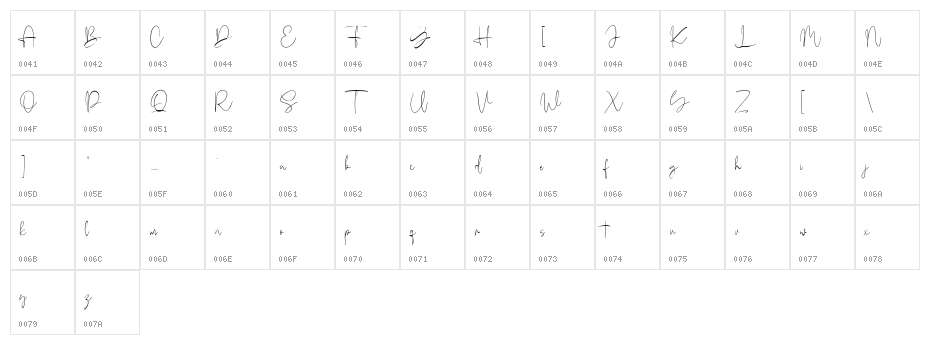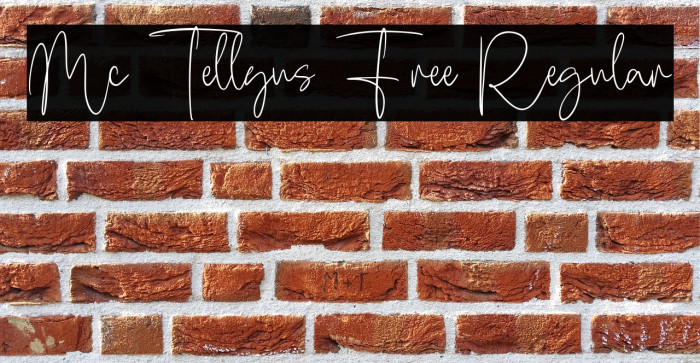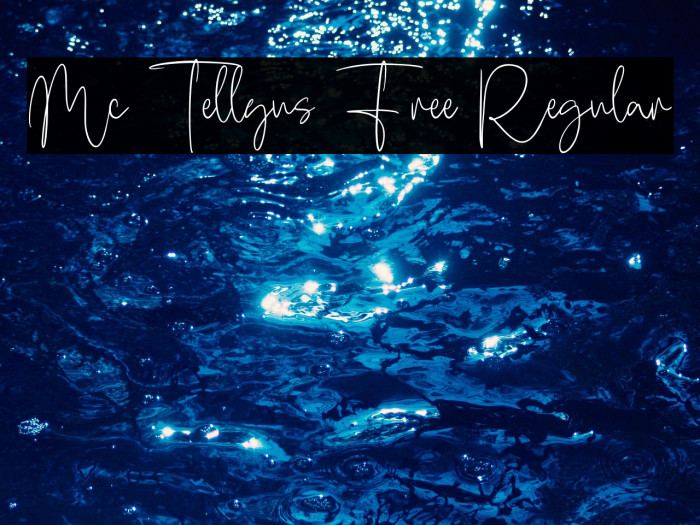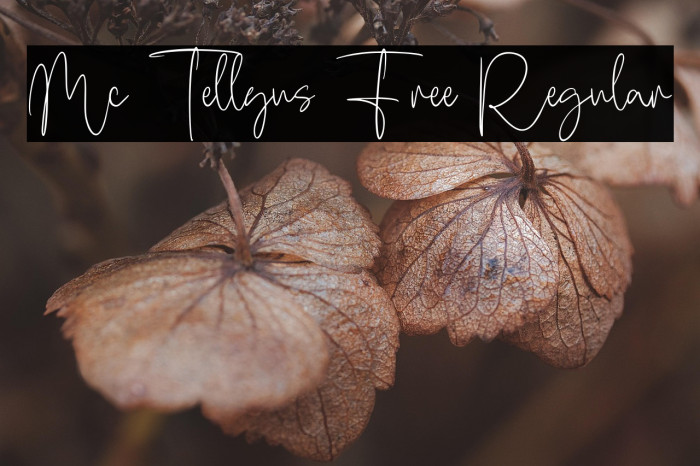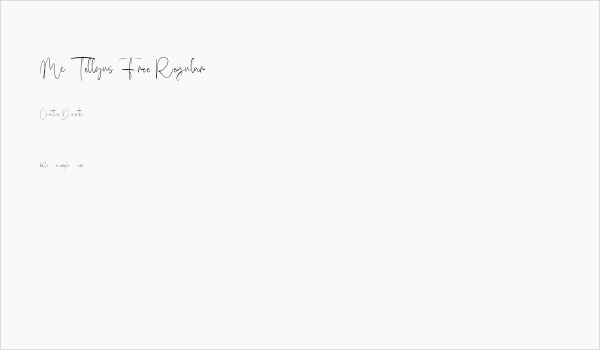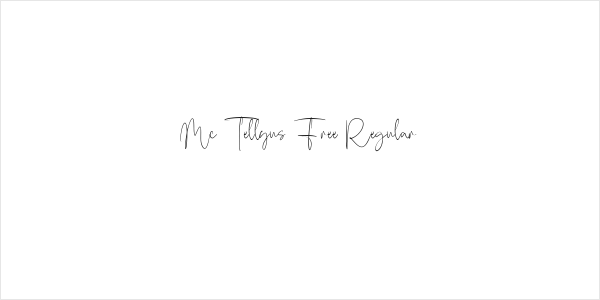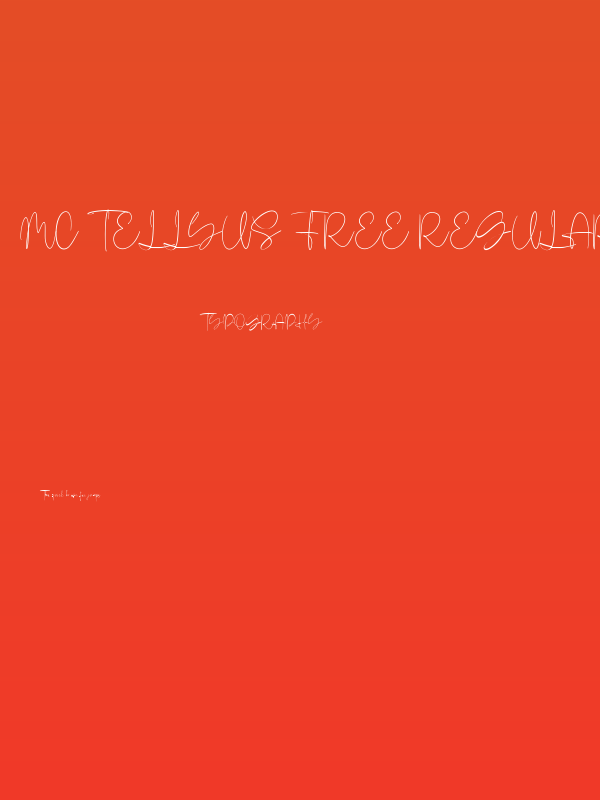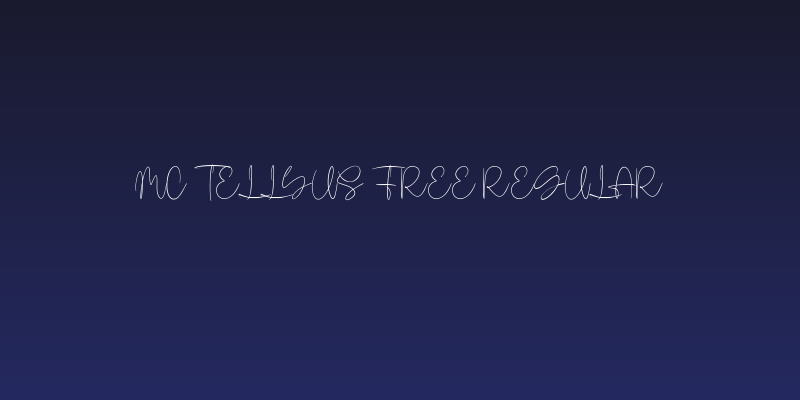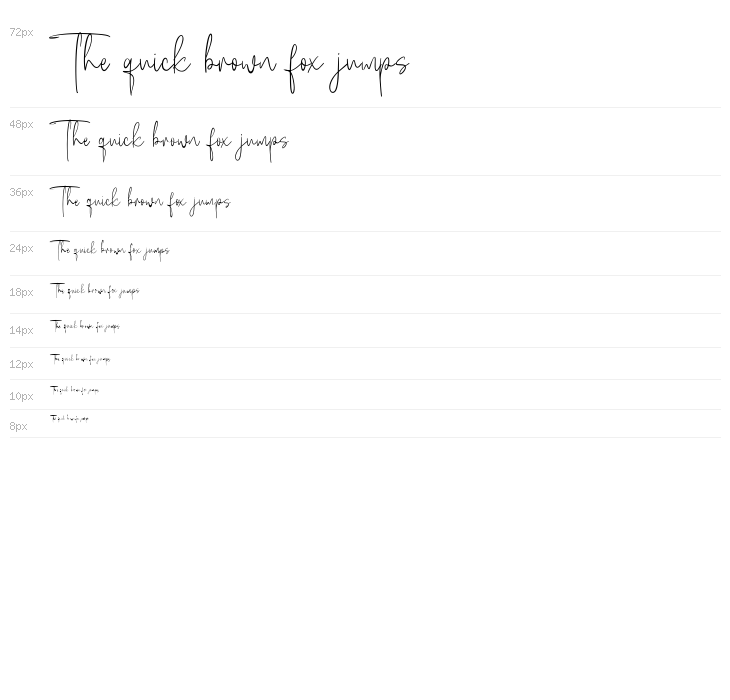
Mc Tellyus Free Regular Font
Mc Tellyus Free Regular Description
This font features a playful and artistic handwritten style, characterized by its flowing and interconnected letterforms. The strokes are thin and delicate, giving it a light and airy appearance. The uppercase letters are bold and expressive, while the lowercase letters maintain a consistent fluidity, enhancing the font's overall elegance. The font's unique charm lies in its ability to convey a sense of creativity and spontaneity, making it ideal for projects that require a personal touch. Its legibility remains intact despite the decorative nature, making it versatile for various design applications.
Use CaseLogos, Invitations, Artistic projects
Proposed ProjectsIdeal for wedding invitations, greeting cards, personal branding, and artistic projects.